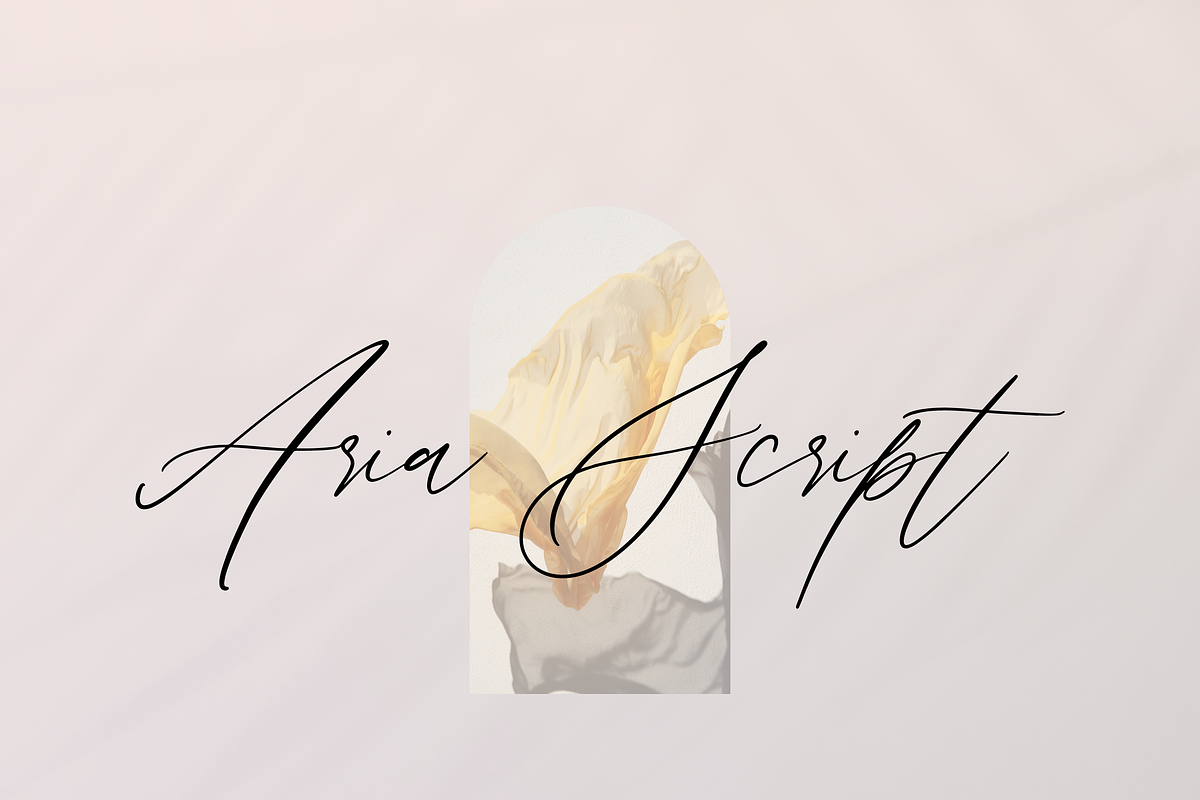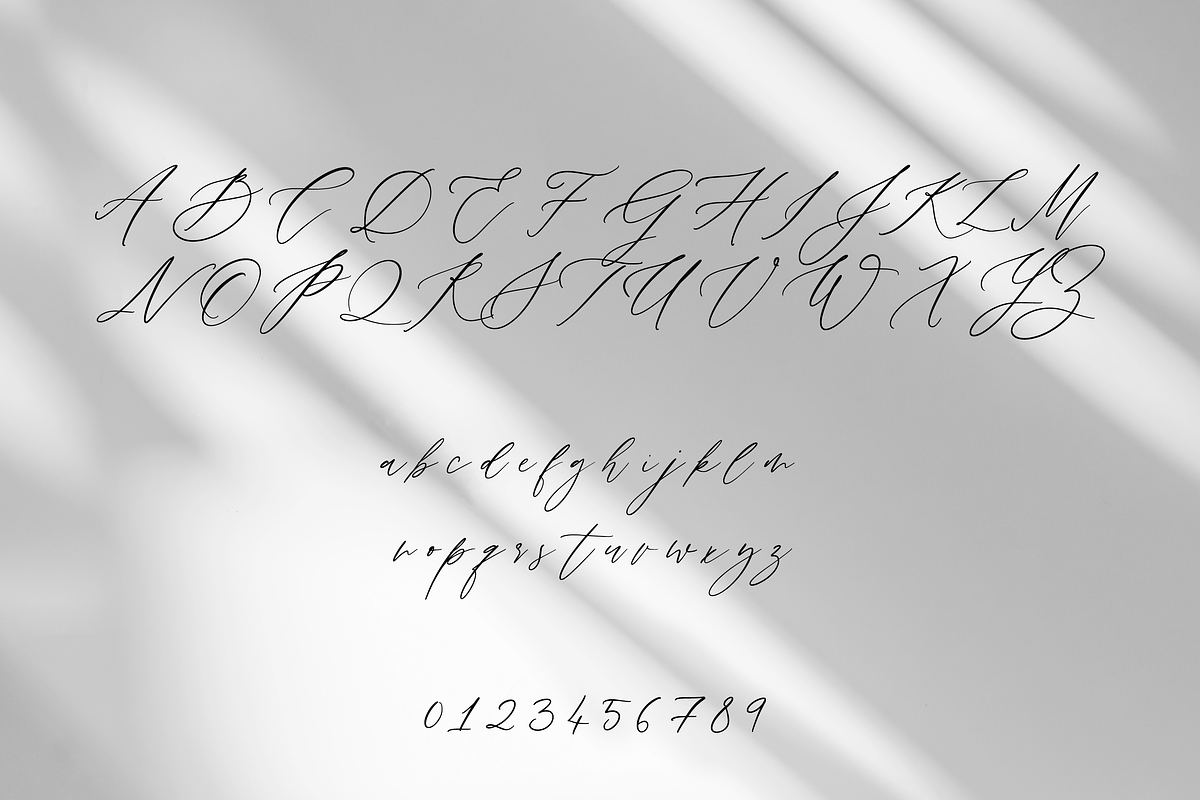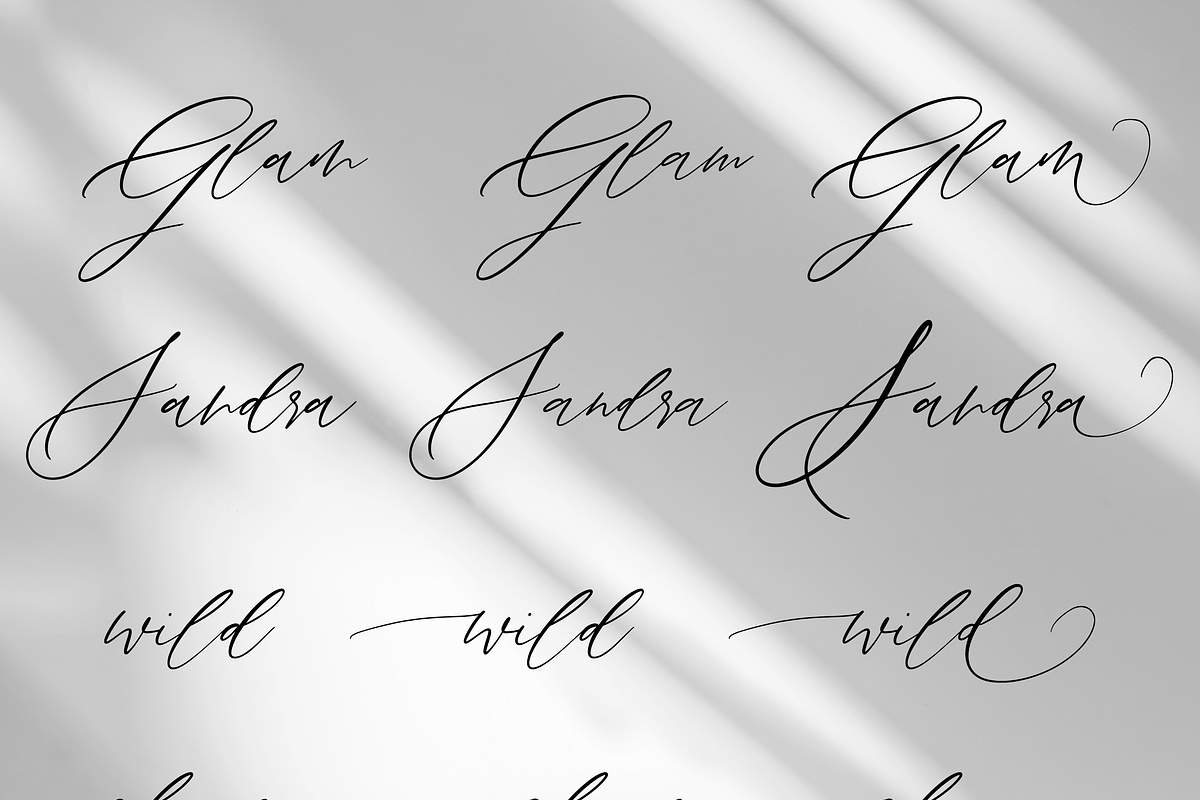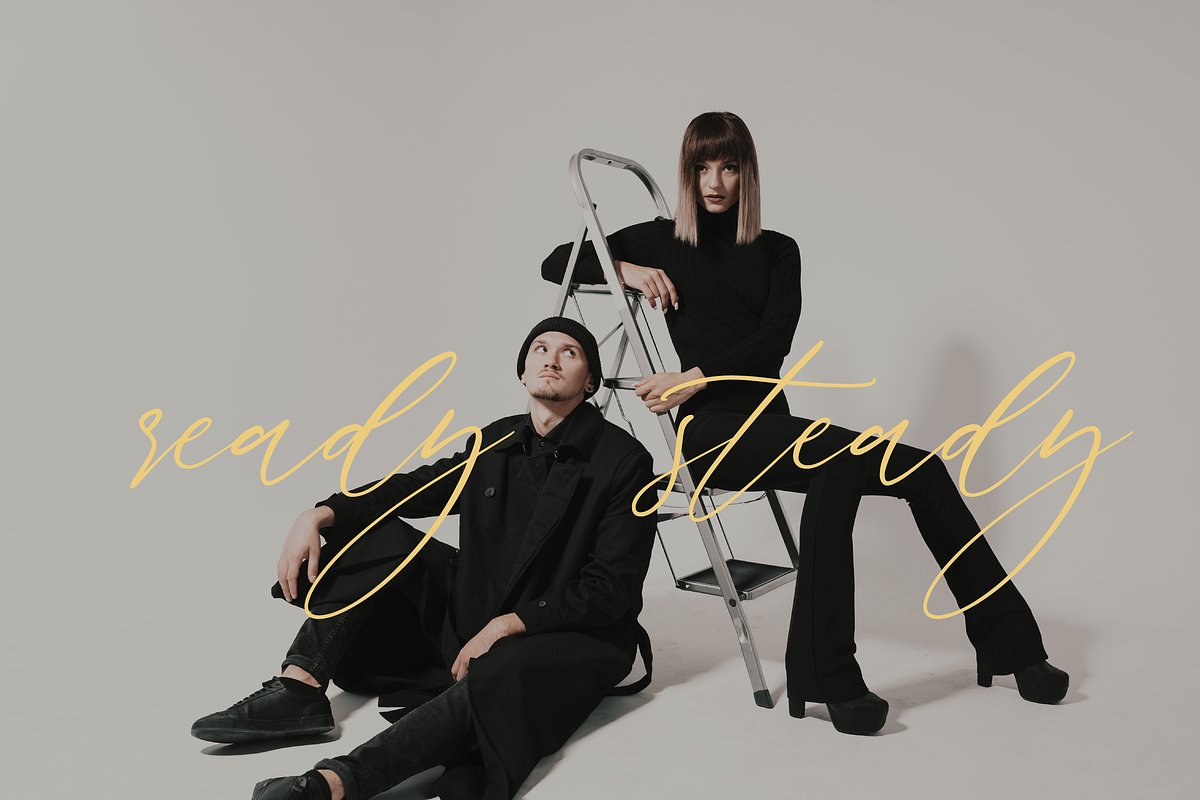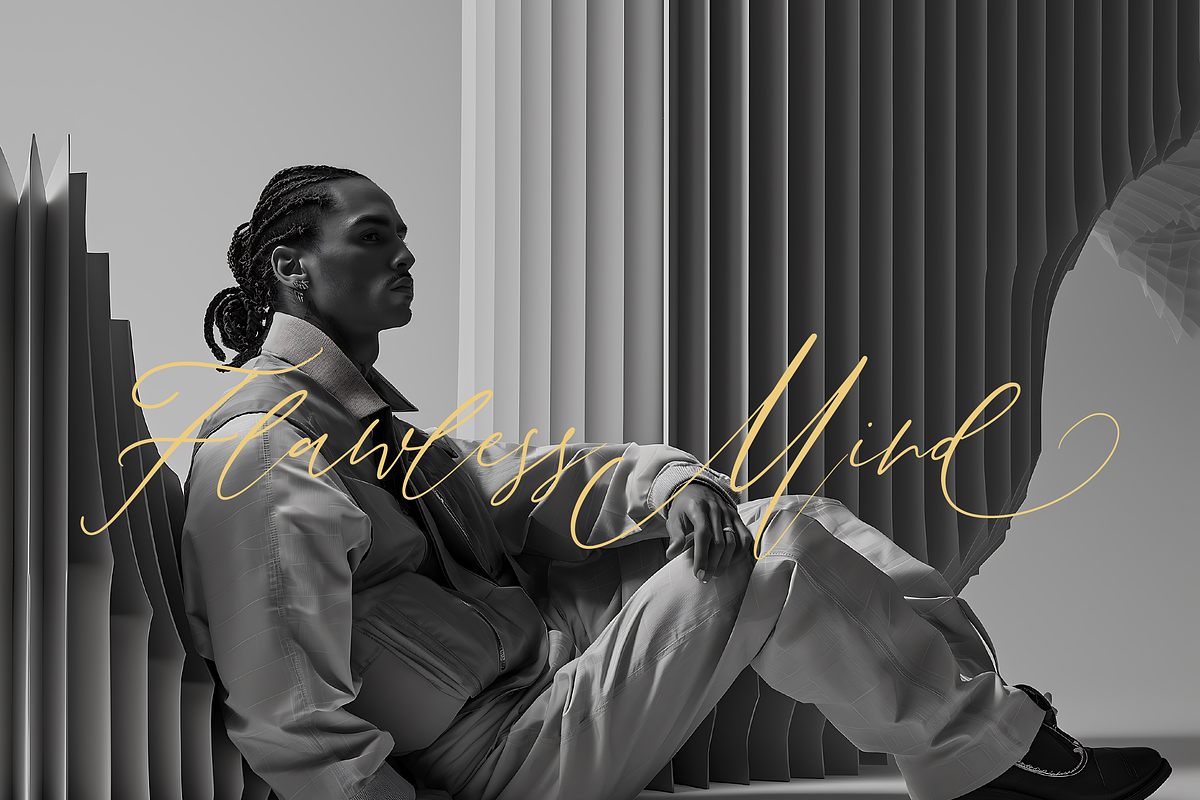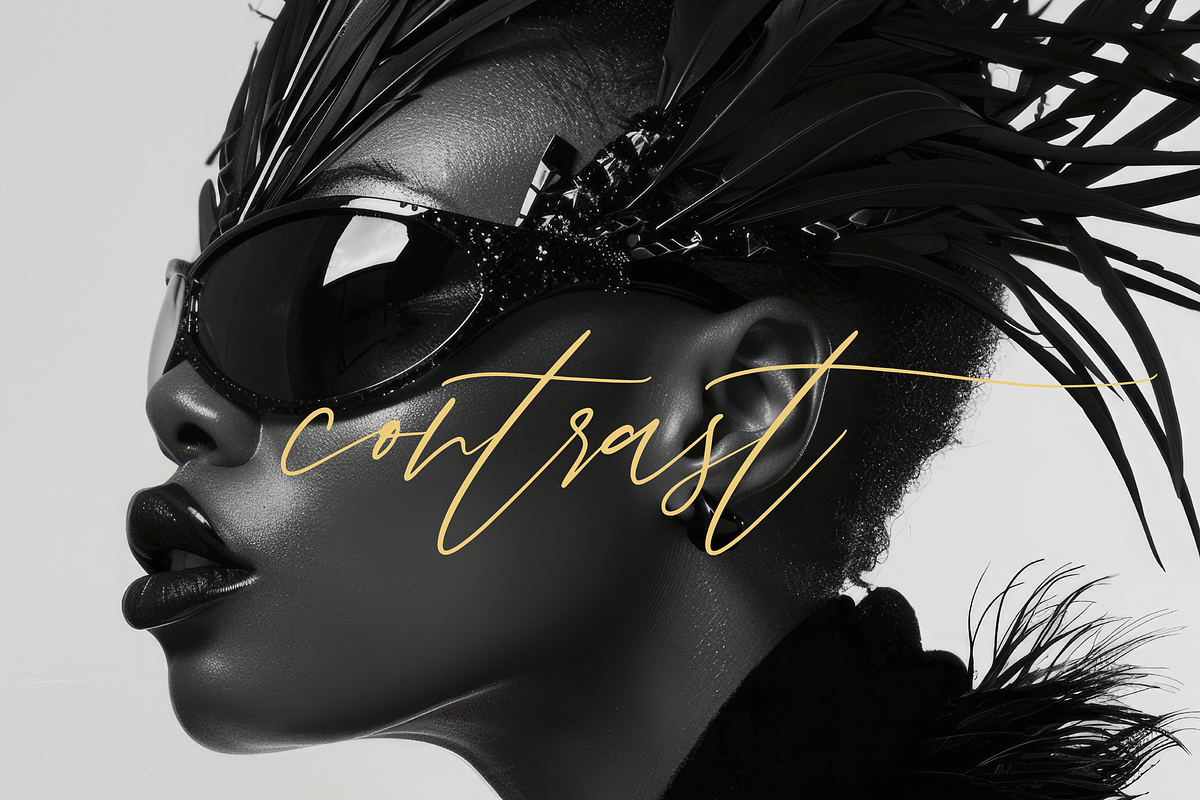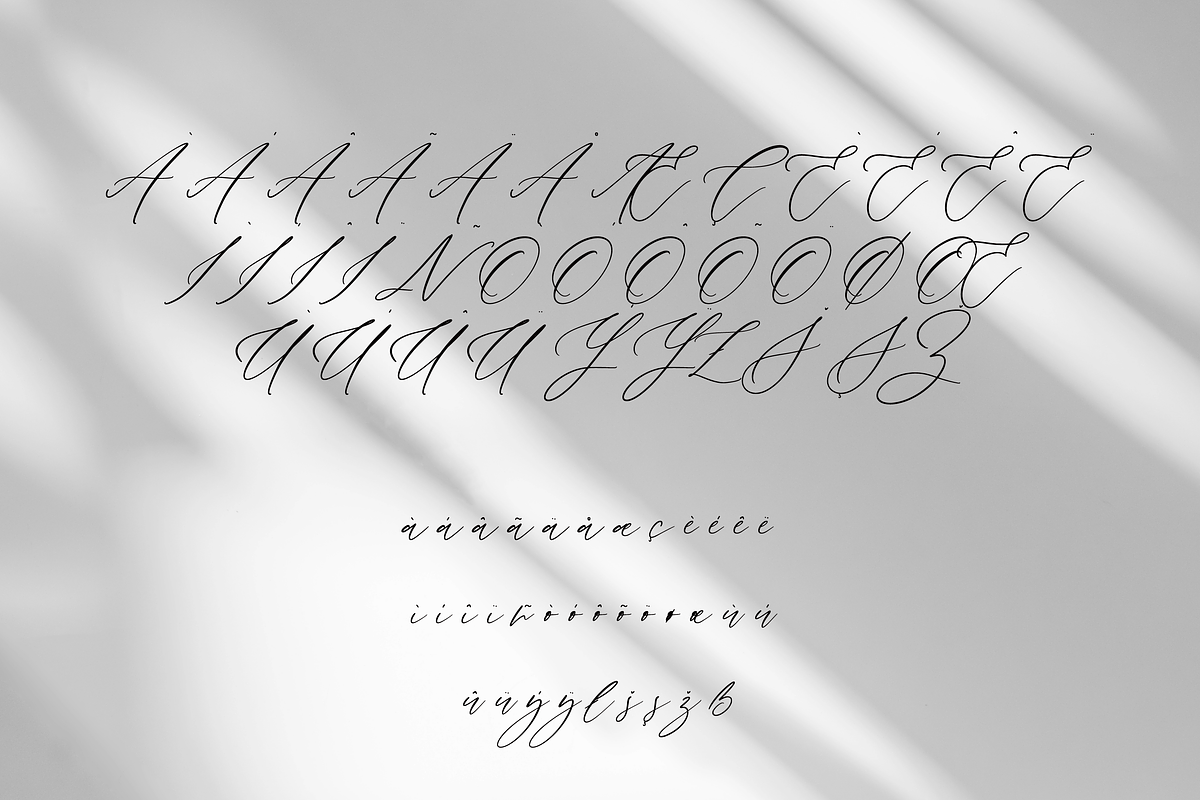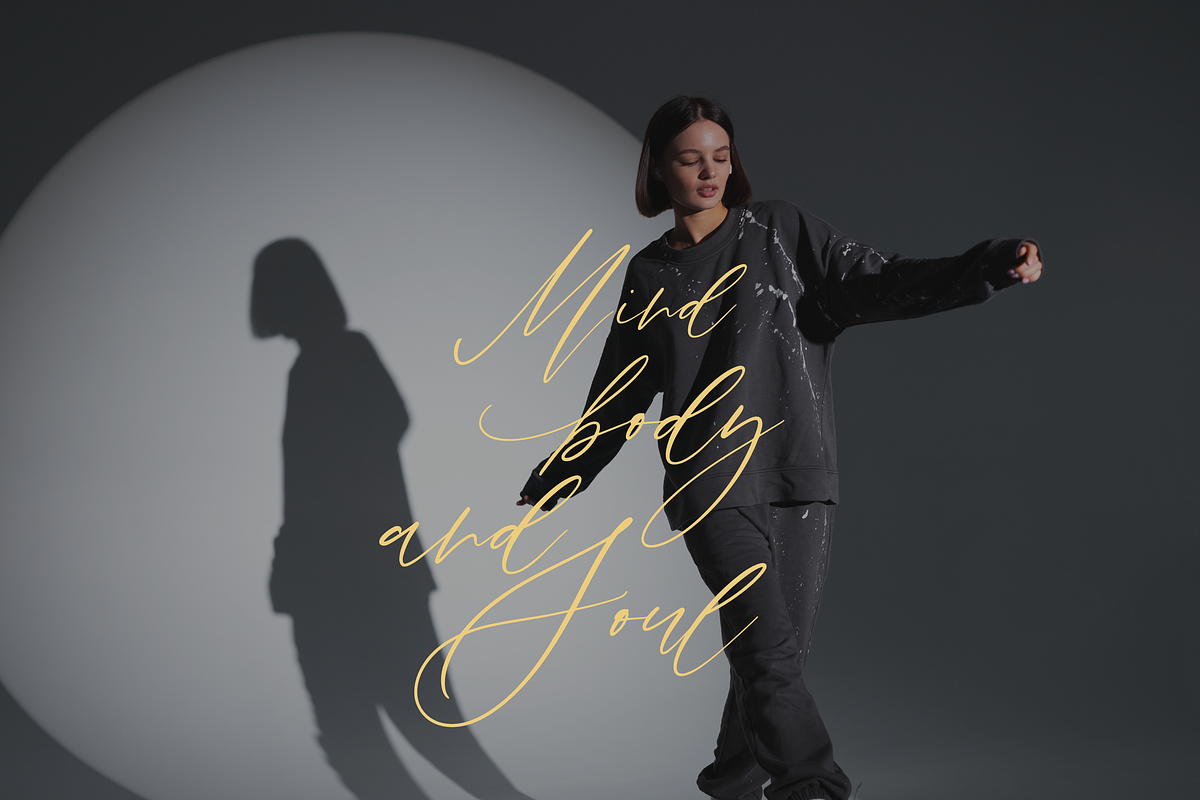
Aria Script
Aria Script – A Charming Handwriting Script
Aria Script is a graceful handwriting-style script font, perfect for a wide range of creative applications. This modern and versatile typeface is commonly used in branding, Cricut crafting, and Procreate designs, adding a personalized touch to projects.
Key Features: • Handcrafted Style – Soft, flowing strokes that mimic natural handwriting for a warm, authentic feel. • Multi-Use Compatibility – Ideal for digital crafting (Cricut), graphic design software (Photoshop, Illustrator), and app platforms (Procreate). • Fully Character Support – Includes uppercase, lowercase, numerals, punctuation, and additional glyphs.
If you're looking to infuse your designs with personal charm—whether for logos, social media graphics, planner stickers, or handmade greeting cards—Aria Script delivers a beautiful, handcrafted aesthetic that enhances any project.